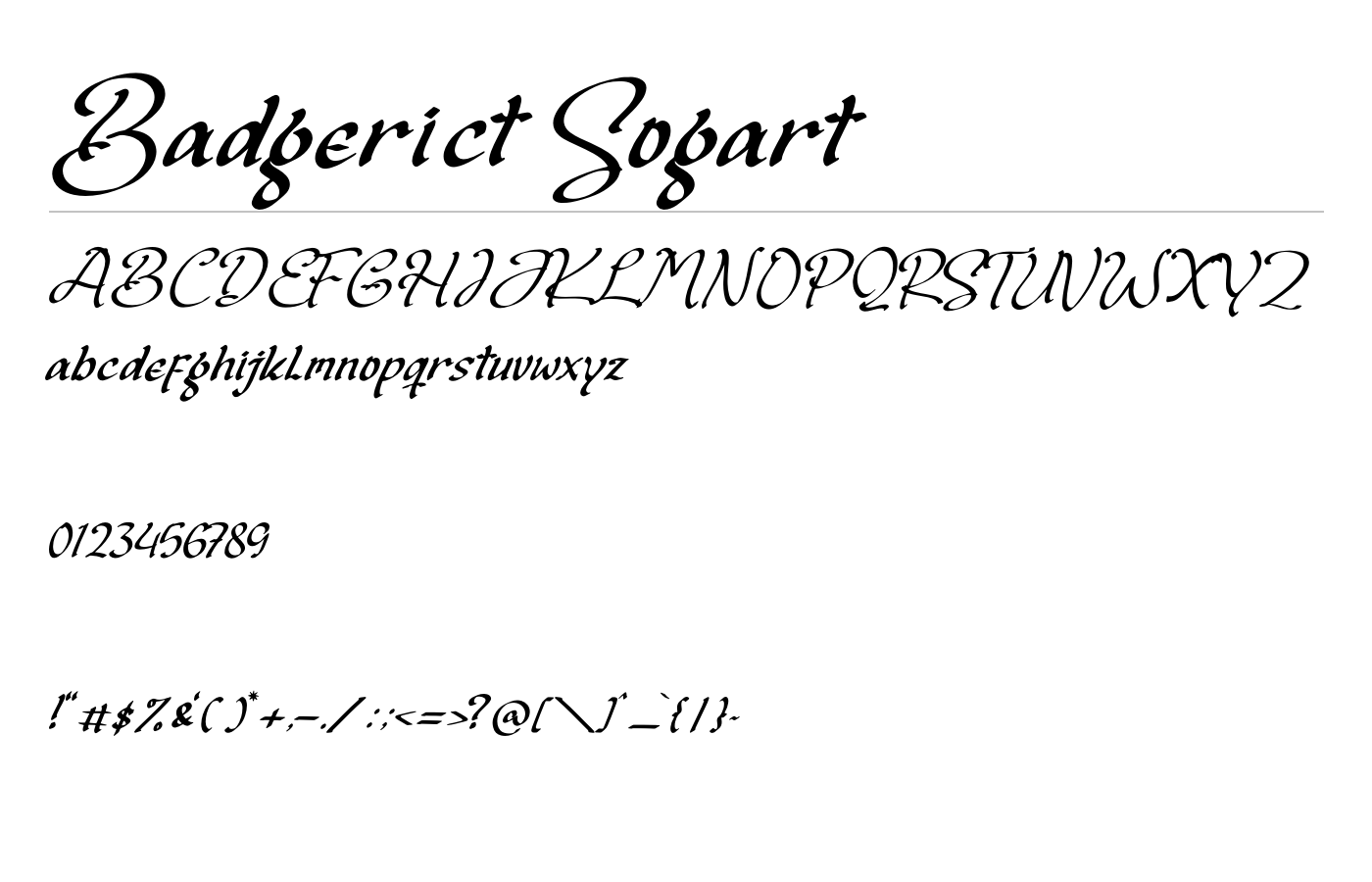
Badgerict Sogart is an elegant script font with a calligraphic style, featuring fluid, dynamic strokes and a moderate contrast between thick and thin lines. Its refined letterforms, with distinctive flourishes and both uppercase and lowercase characters, make it ideal for sophisticated branding, invitations, or decorative headlines where a touch of classic handwritten charm is desired. This font brings a luxurious and artistic feel that suits fashion, wedding, or upscale editorial use.
Badgerict Sogart Font